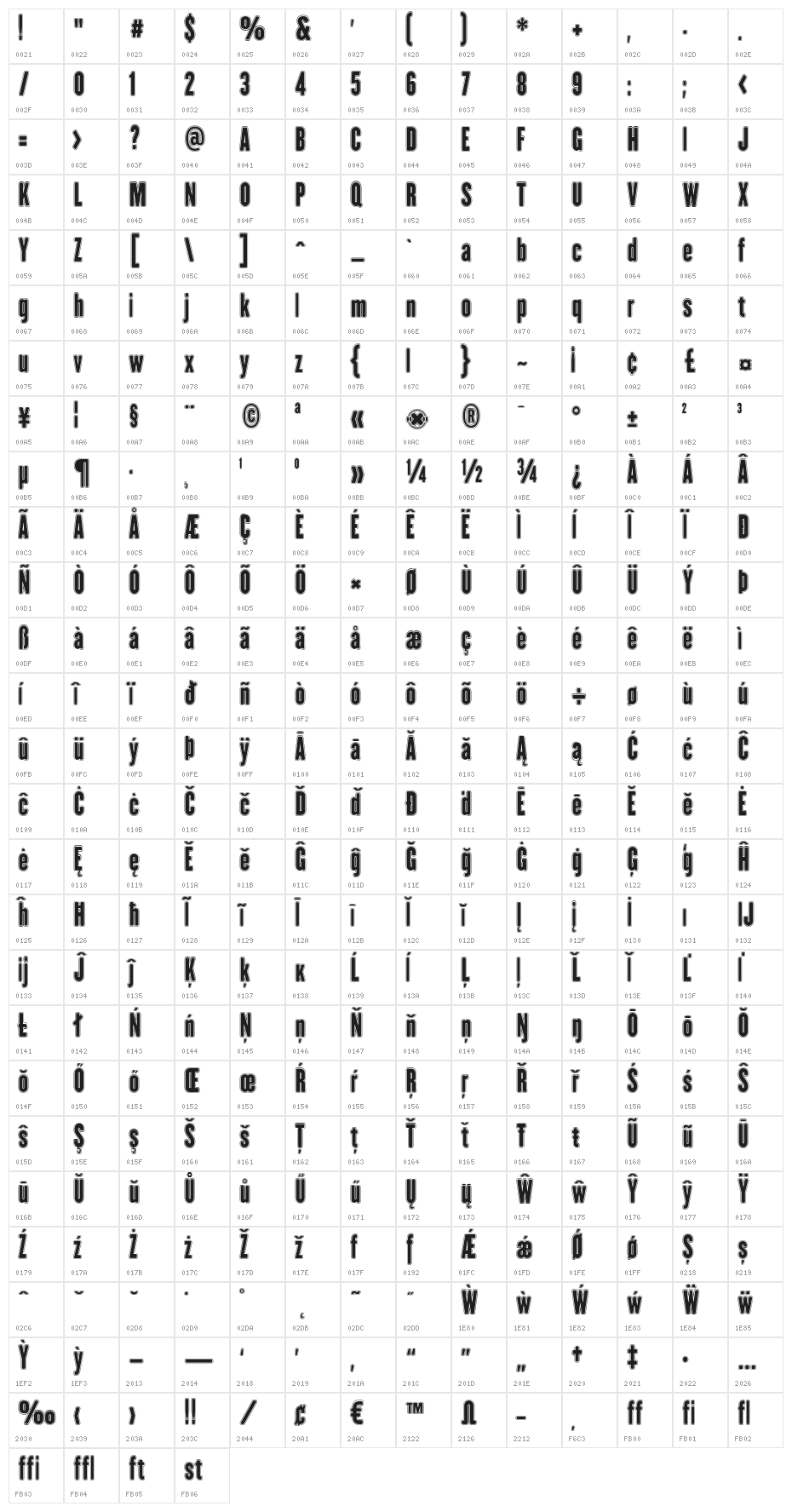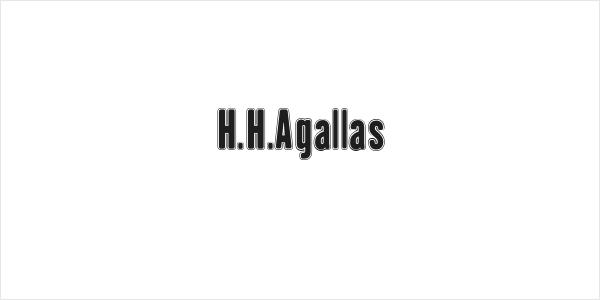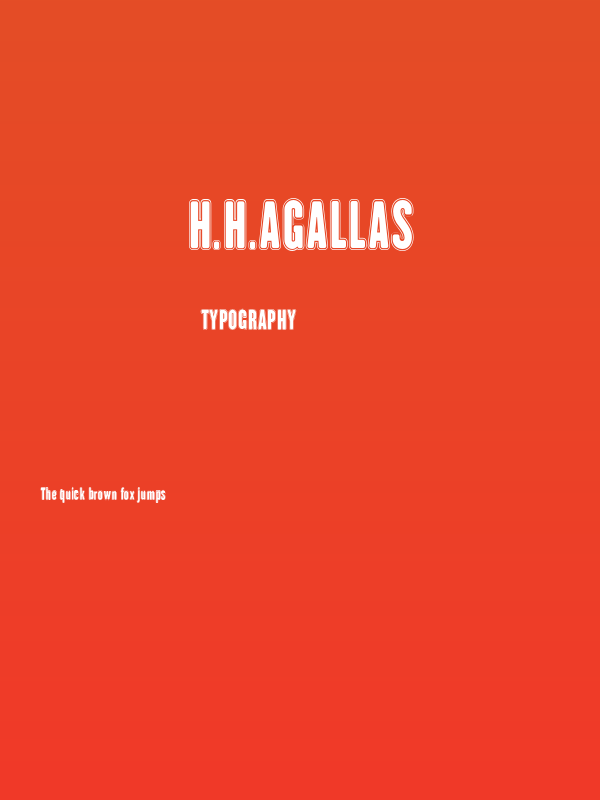
H.H.Agallas Font
H.H.Agallas Description
This font features bold, uppercase and lowercase letters with a distinct outline that gives it a strong, impactful appearance. The characters are tall and slightly condensed, with rounded edges that soften the overall look. The numbers and special characters maintain the same bold style, ensuring consistency across all glyphs. The font's design is both modern and retro, making it versatile for various applications. Its boldness and outline make it stand out, ideal for attention-grabbing designs.
Overall StyleModern, Retro
Proposed ProjectsIdeal for posters, headlines, branding, and any design requiring a bold statement.